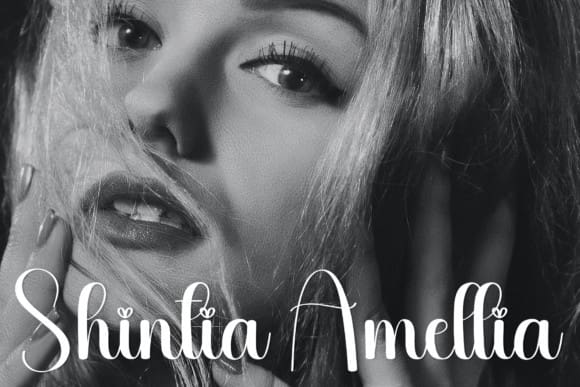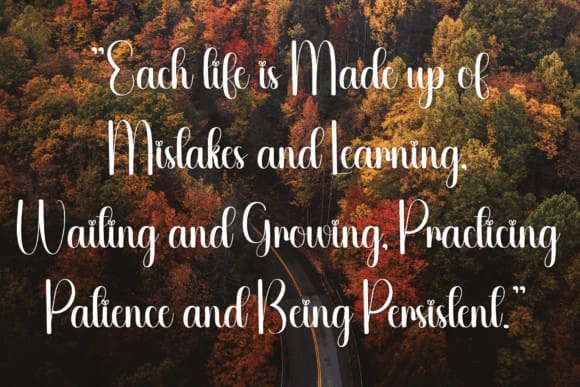
Garlands Script Font
Garlands Script Font is an enchanting handwritten font. This versatile script font has a wide spectrum of applications ranging from greeting cards to headlines and is guaranteed to add a romantic feel to your next project.